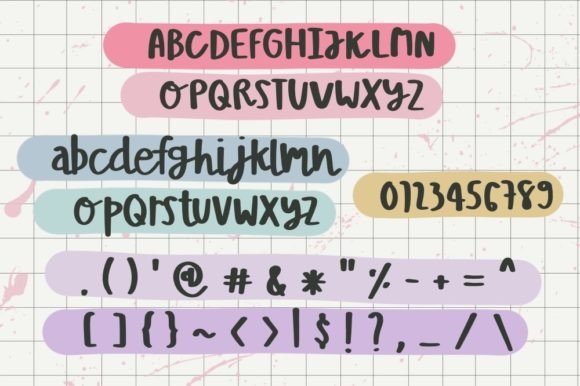
Hollyn Font
About Hollyn Font
Hollyn is a fun and cute handwritten font. Whether you’re using it for making notes, crafts, digital design, presentations, titles, or making greeting cards, this font has the potential to become your favorite go-to font, no matter the occasion!